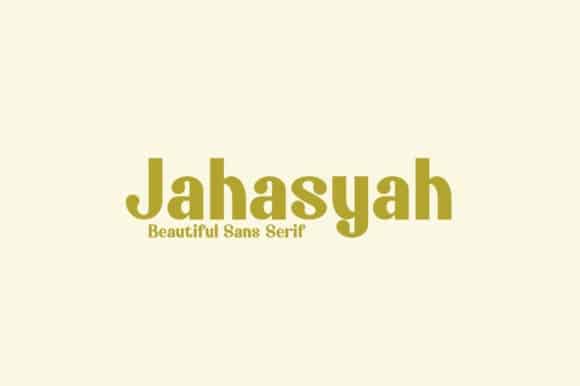
Jahasyah Sans Serif Font
Jahasyah Font is a versatile easy-to-use functional display sans serif typeface with a strong personality, especially its uppercase, which makes the designer’s work easier. This font crafted with the intention to present a clean, legible, multipurpose that easy to read wether it on screen or print.